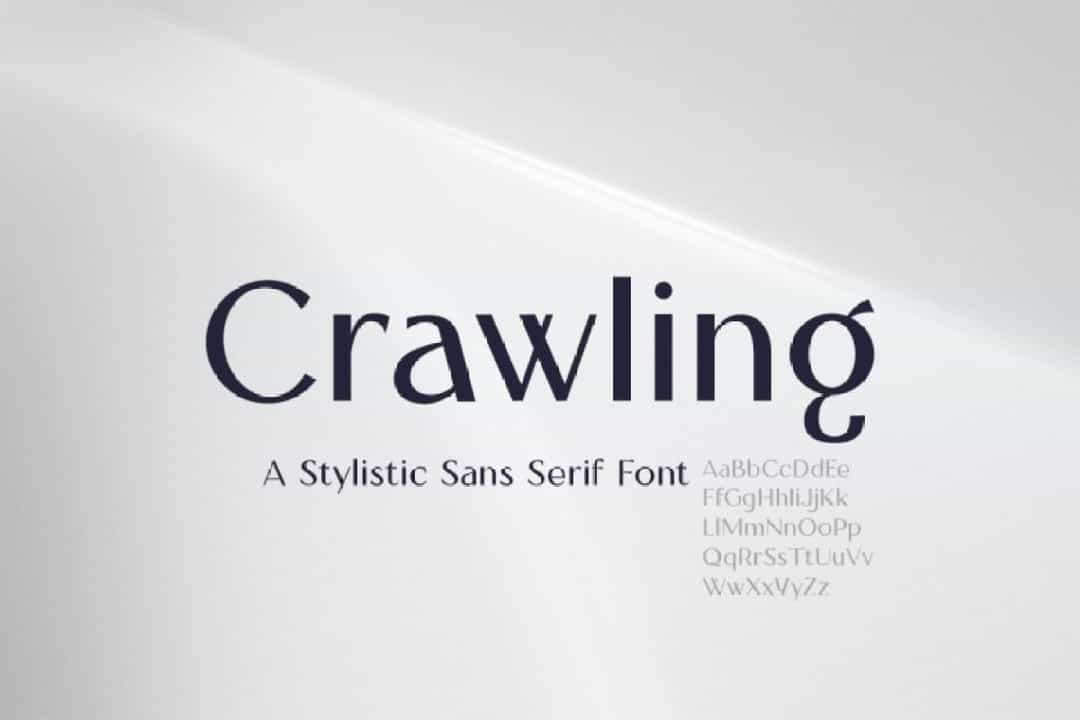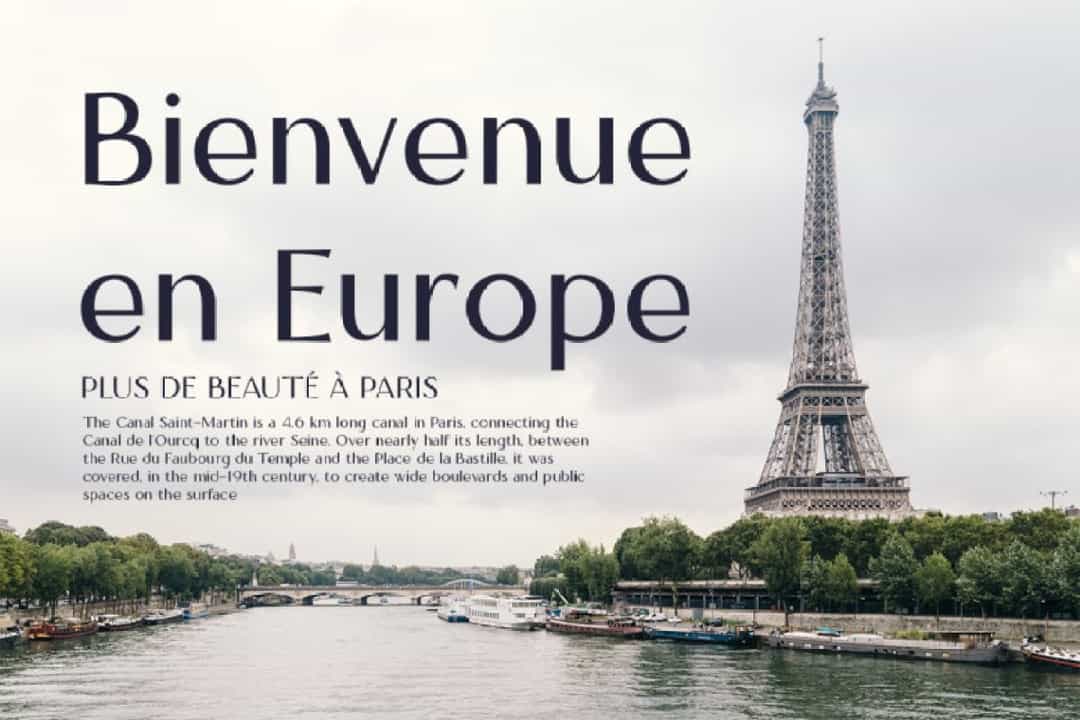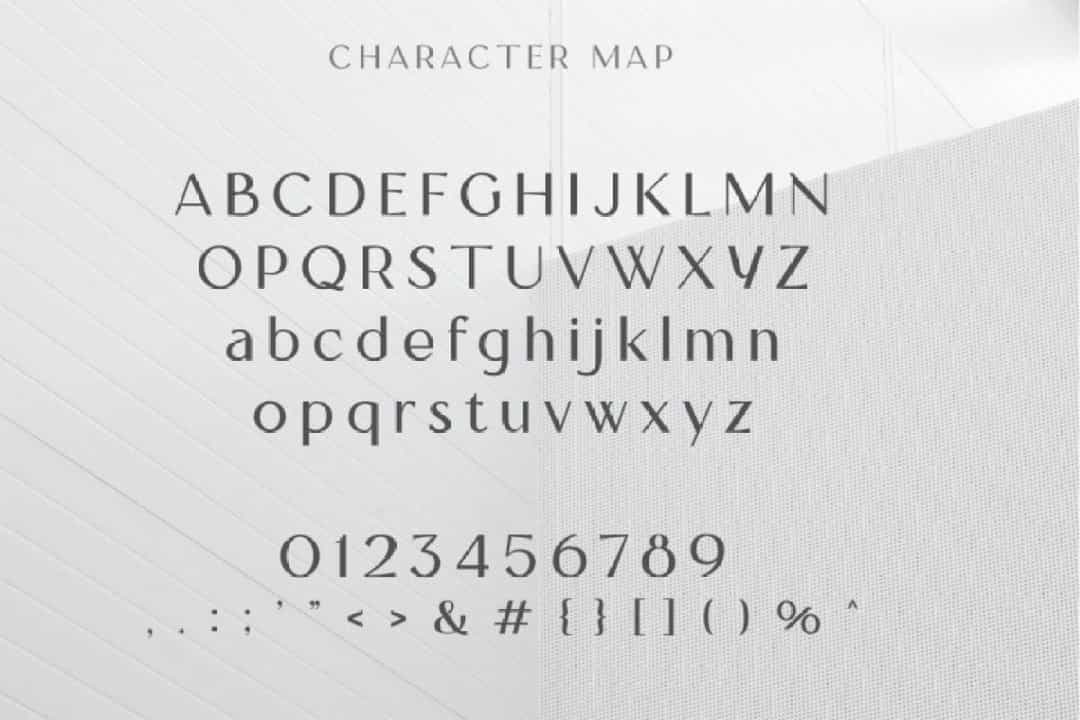
Crawling is a modern and stylish sans-serif font ideal for logos, headings, advertising campaigns, publications and invitations. This font boasts sleek lines with graceful curves to give any project a modern edge.